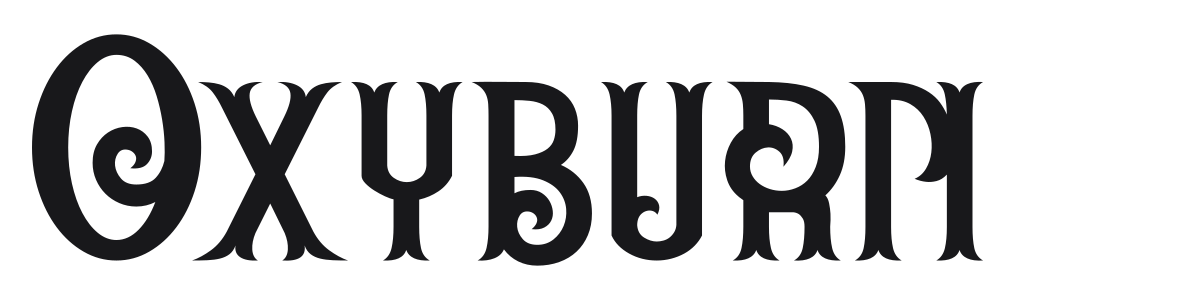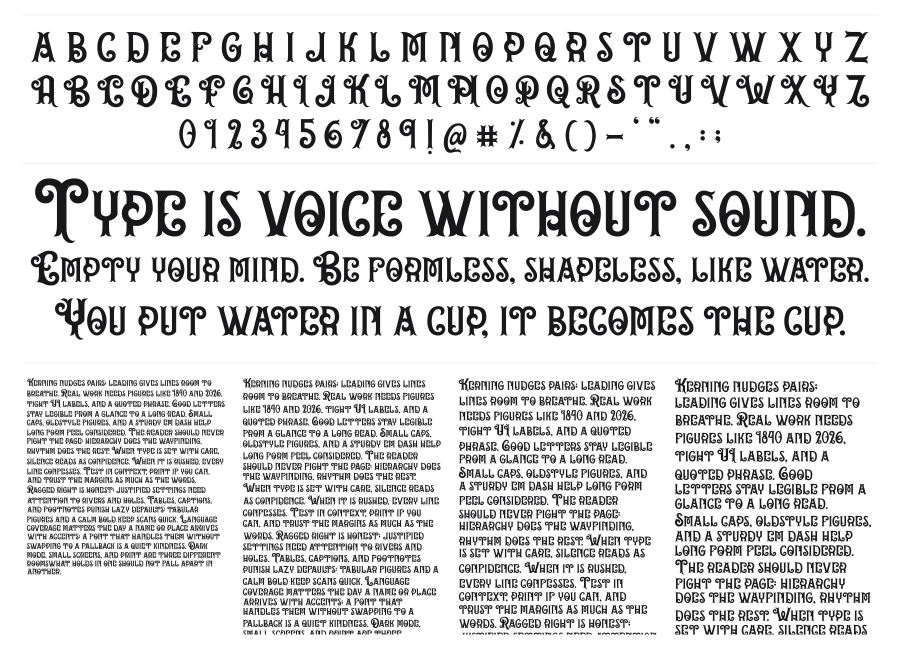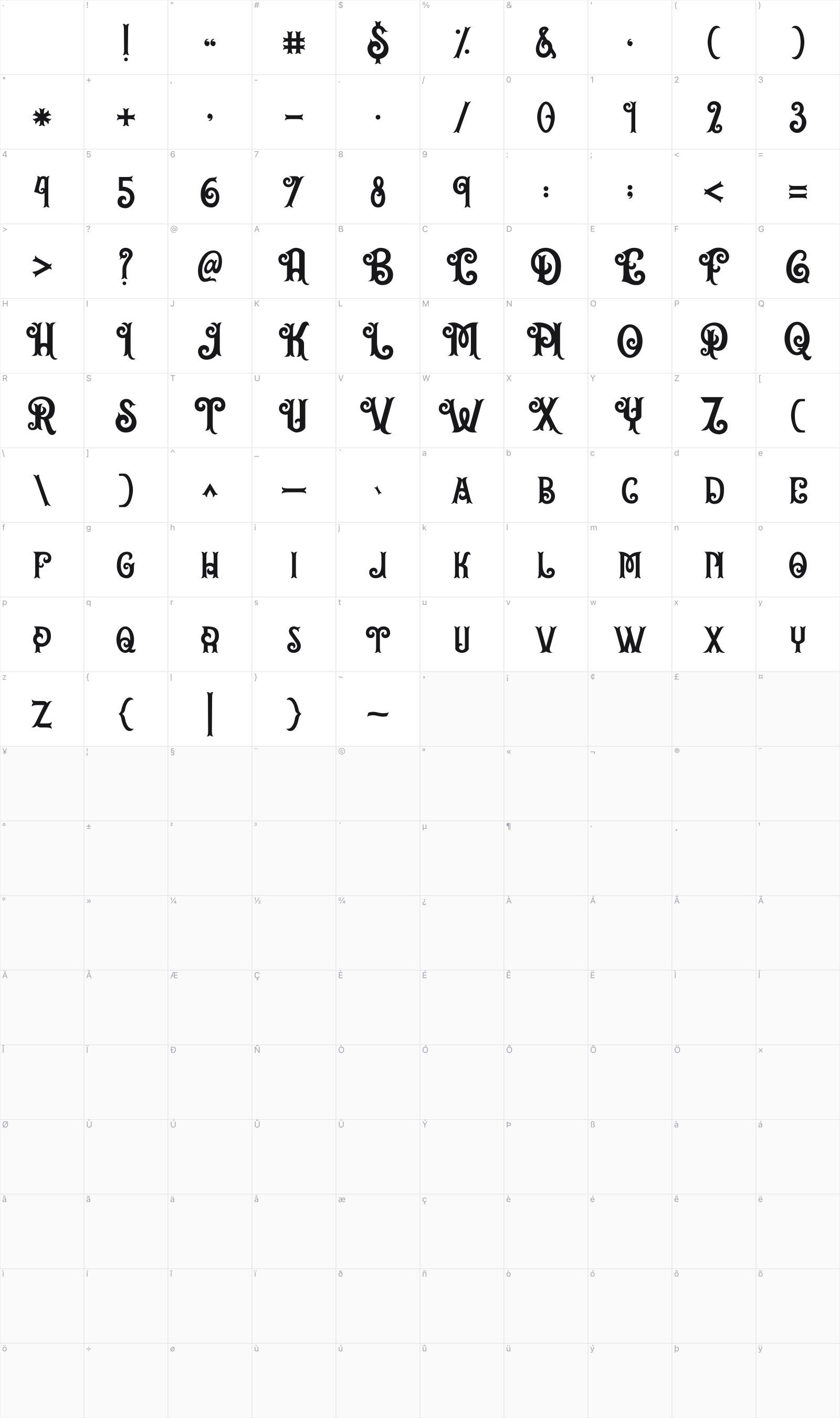
Oxyburn
Oxyburn is a wide, heavy display serif dripping with Art Nouveau influence and 1960s psychedelic energy. The curled, flared serifs and high stroke contrast give it a theatrical presence that commands attention at large sizes. It fits naturally on concert posters, vintage-style branding, and any project that wants bold retro character.